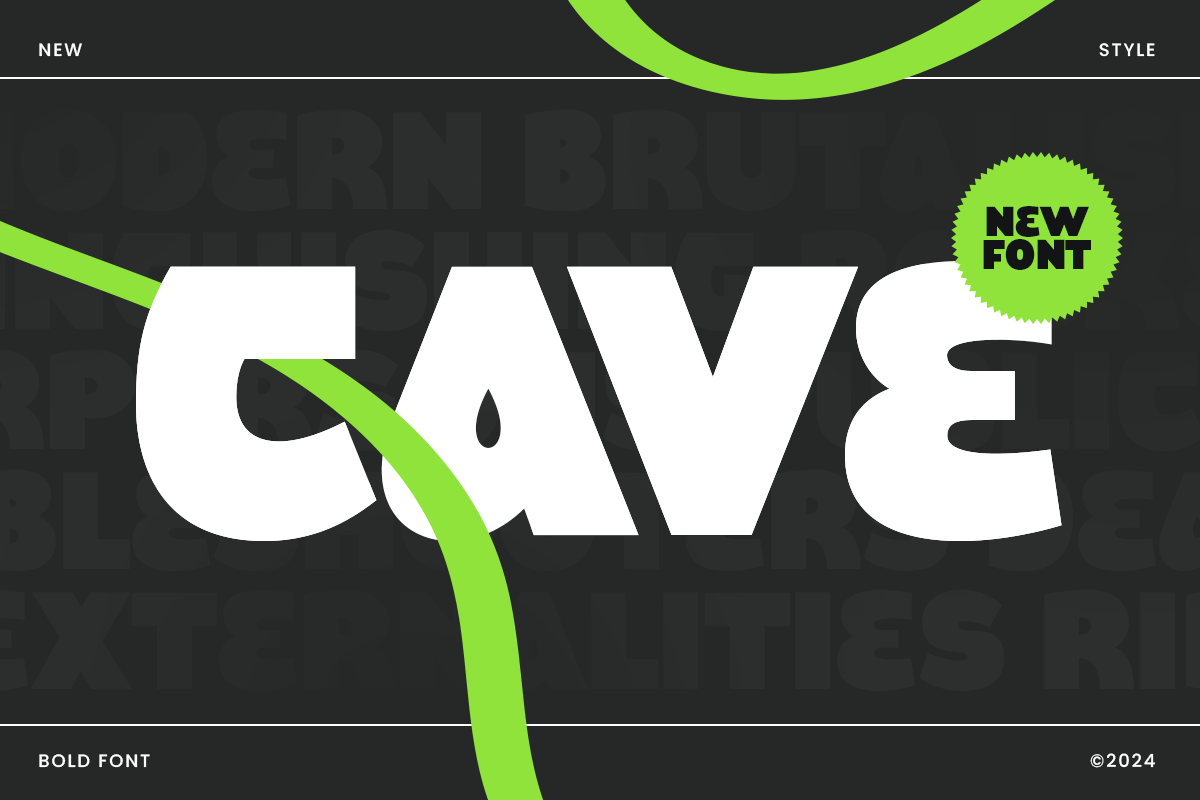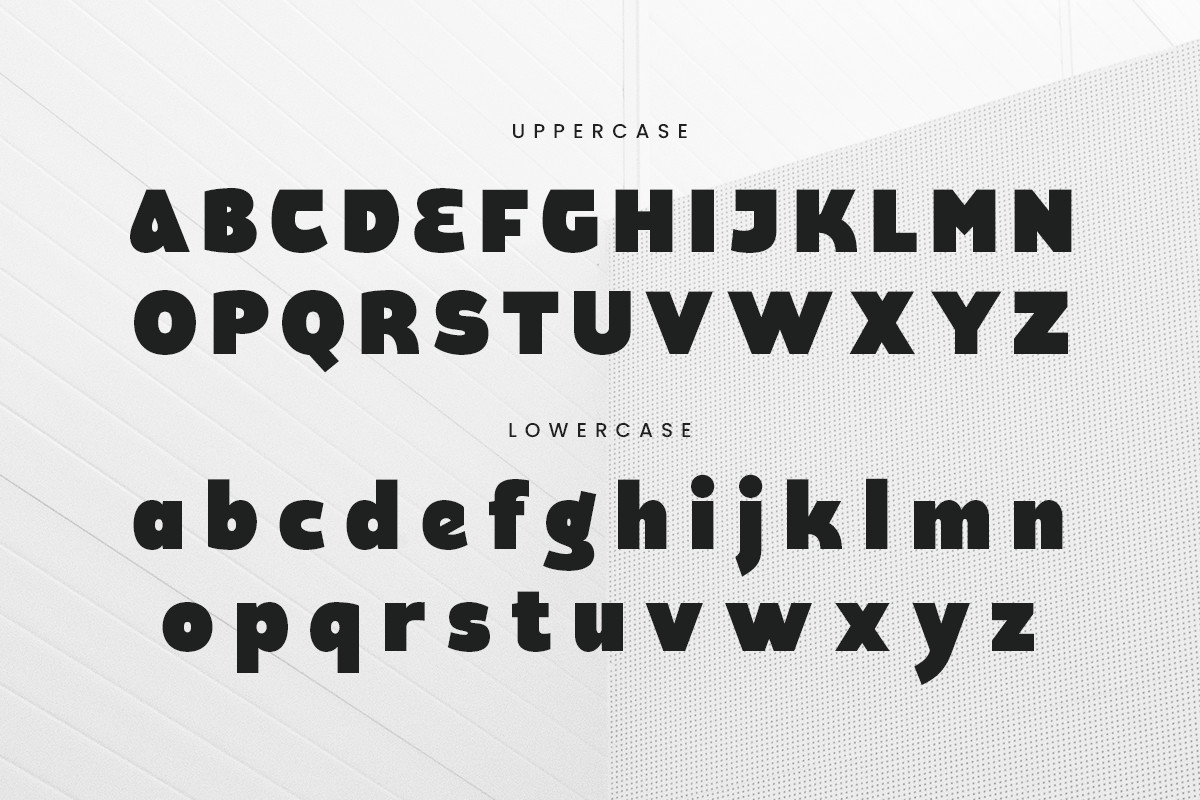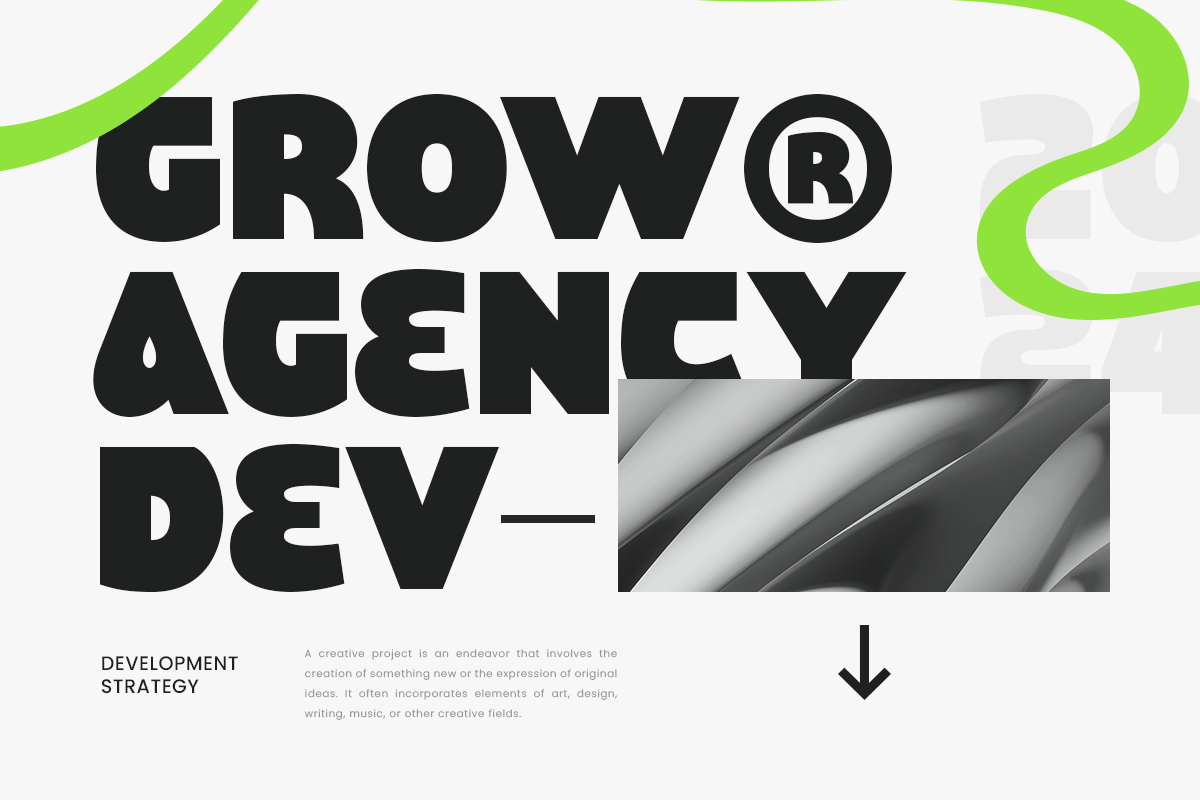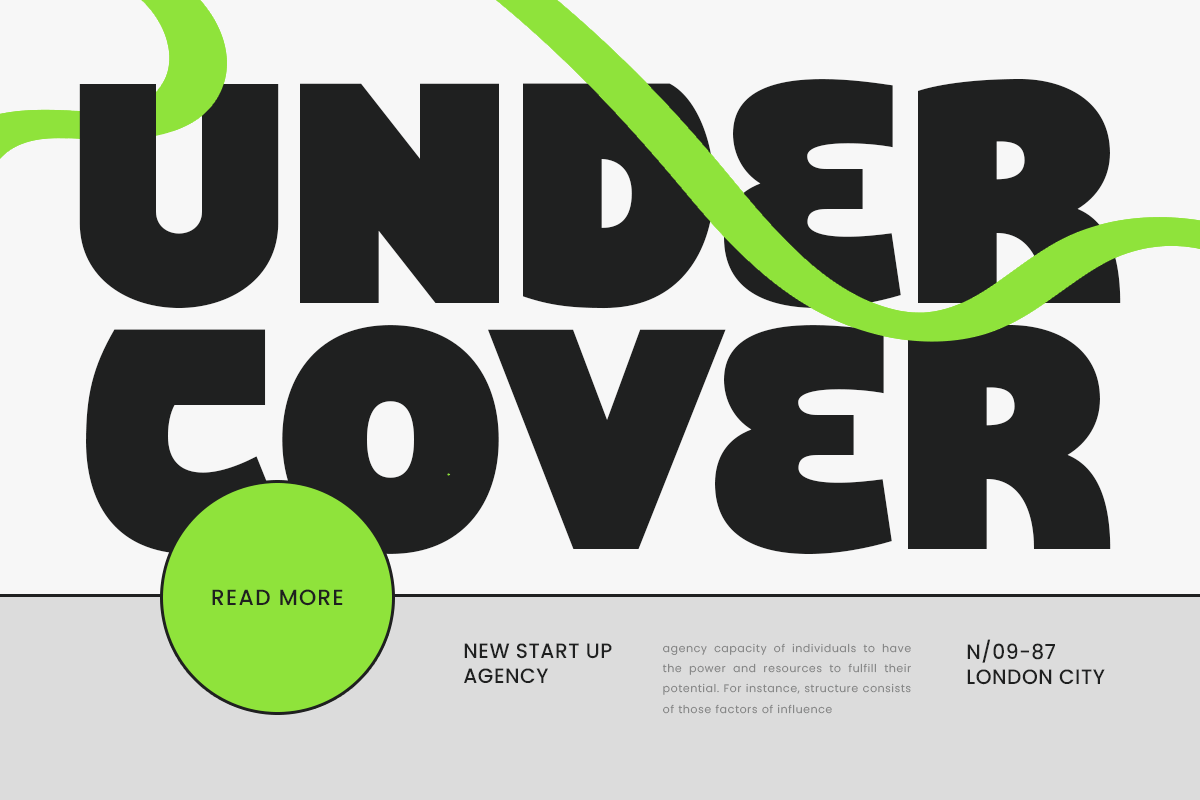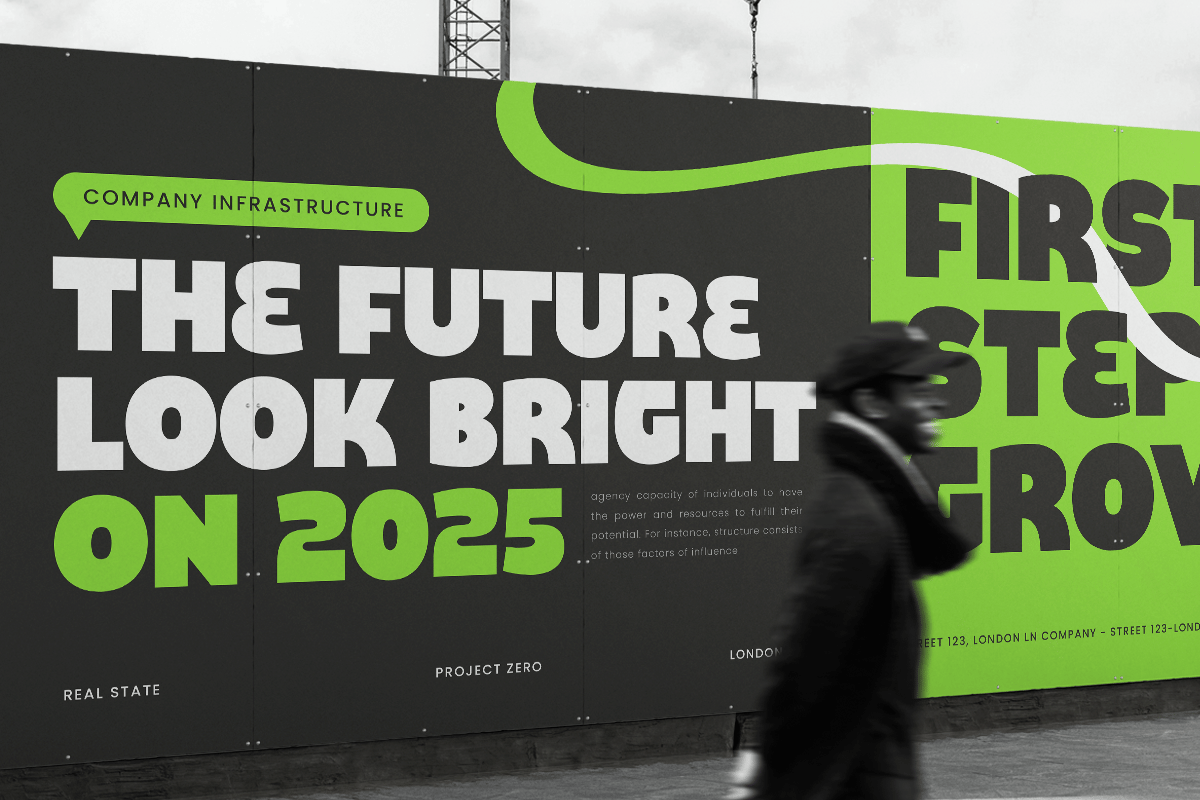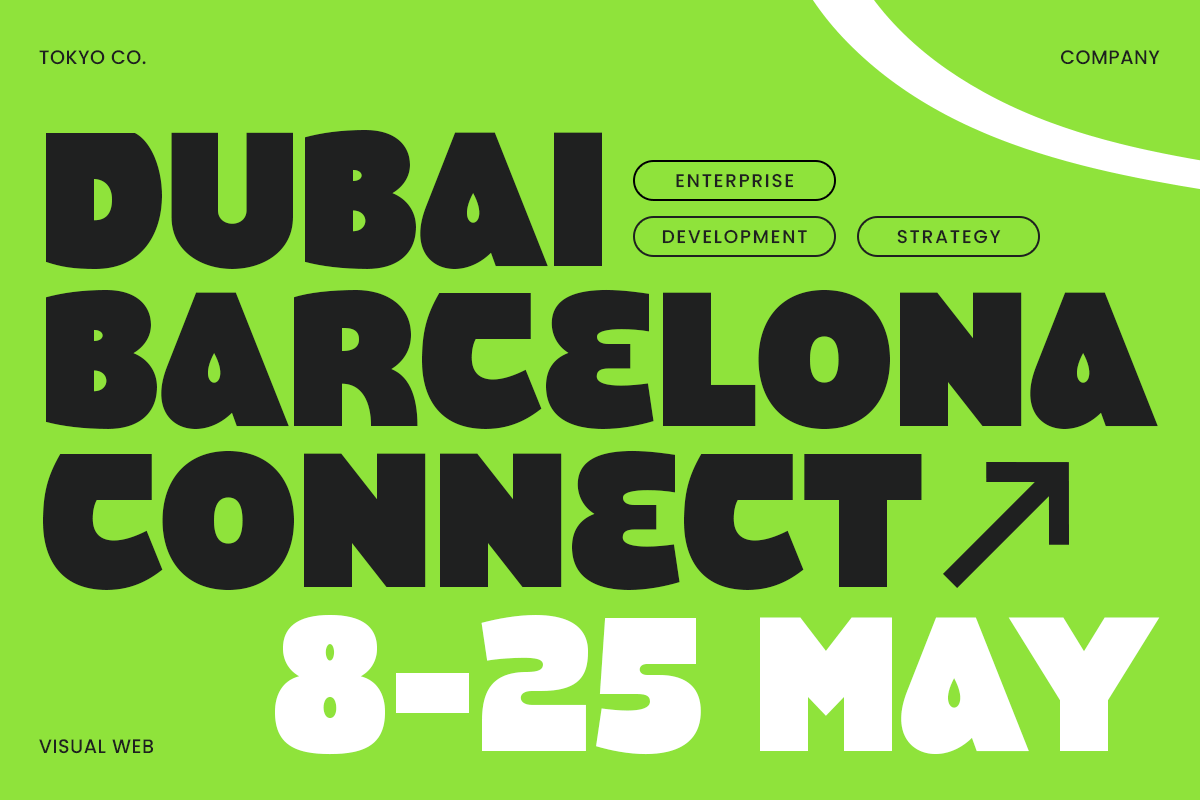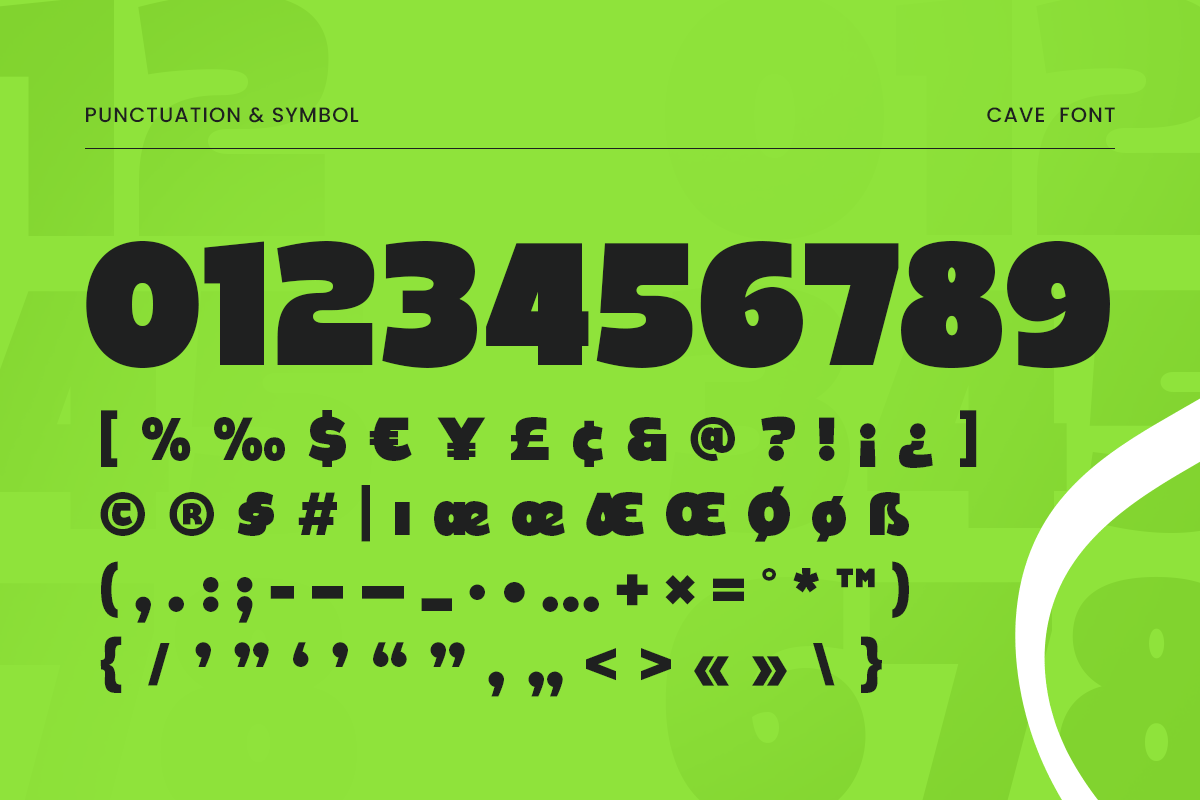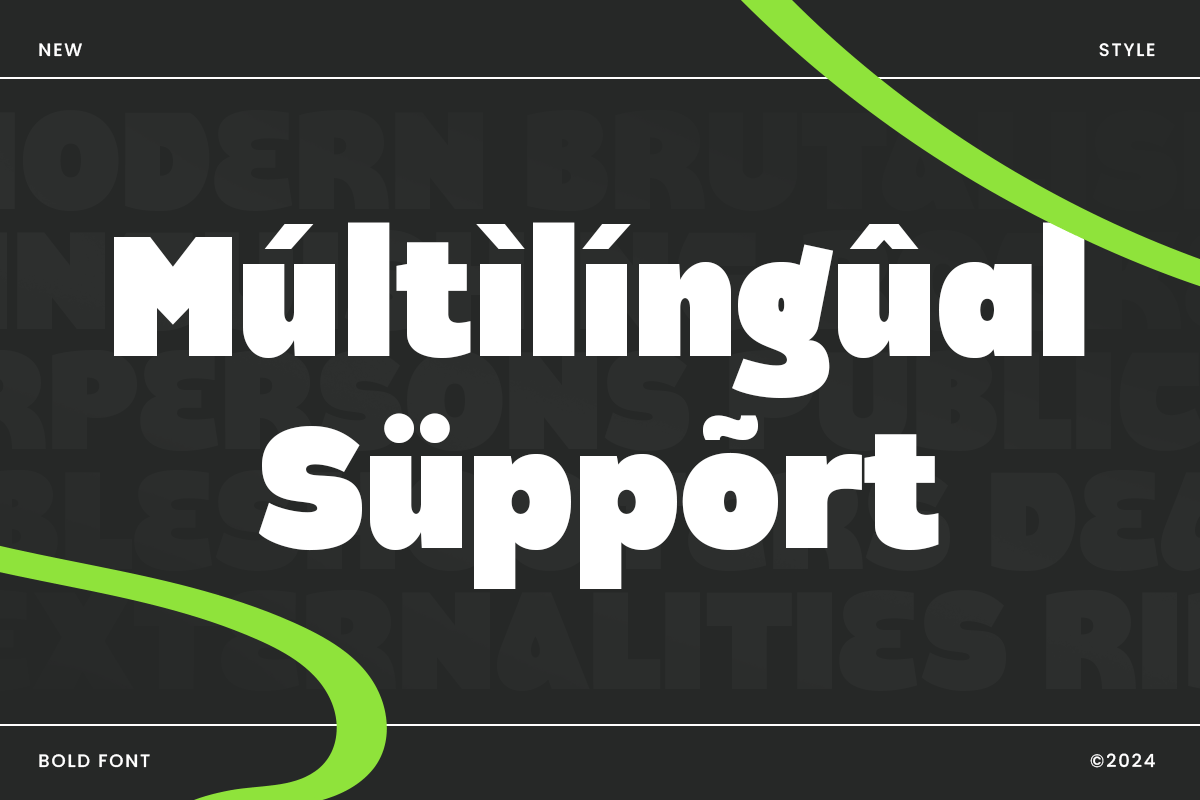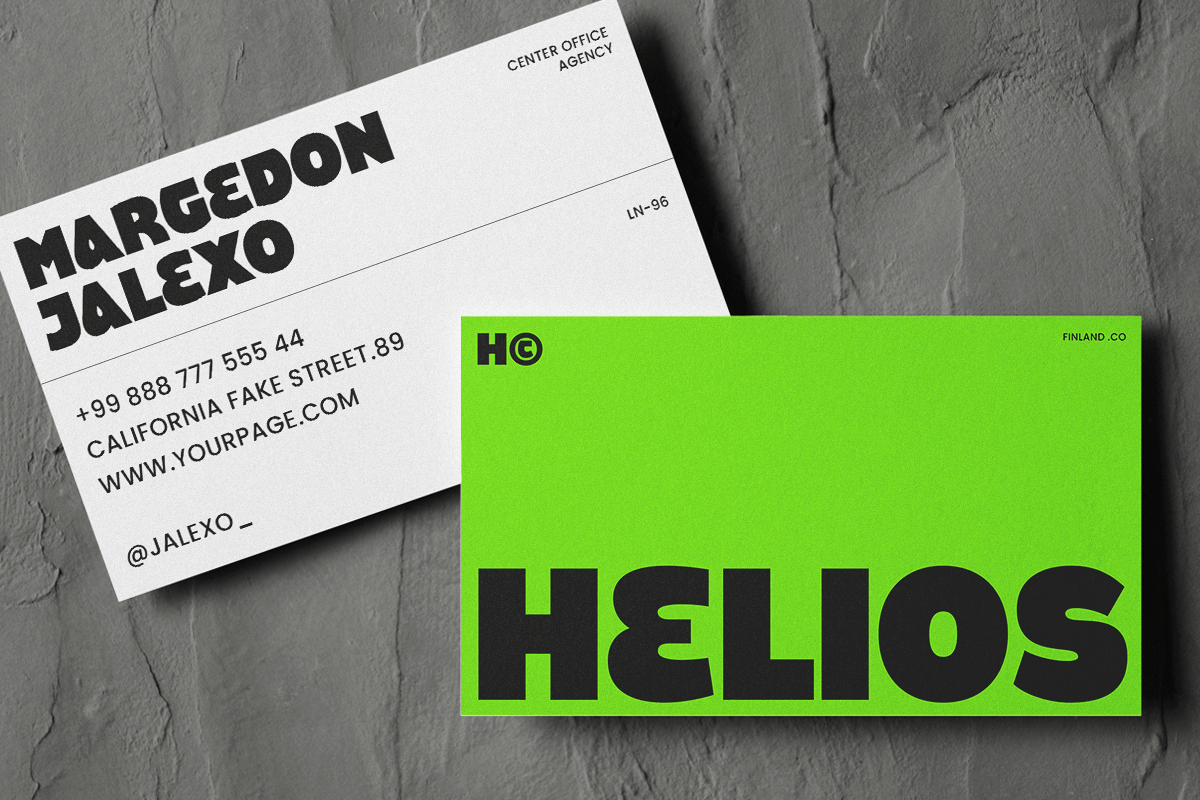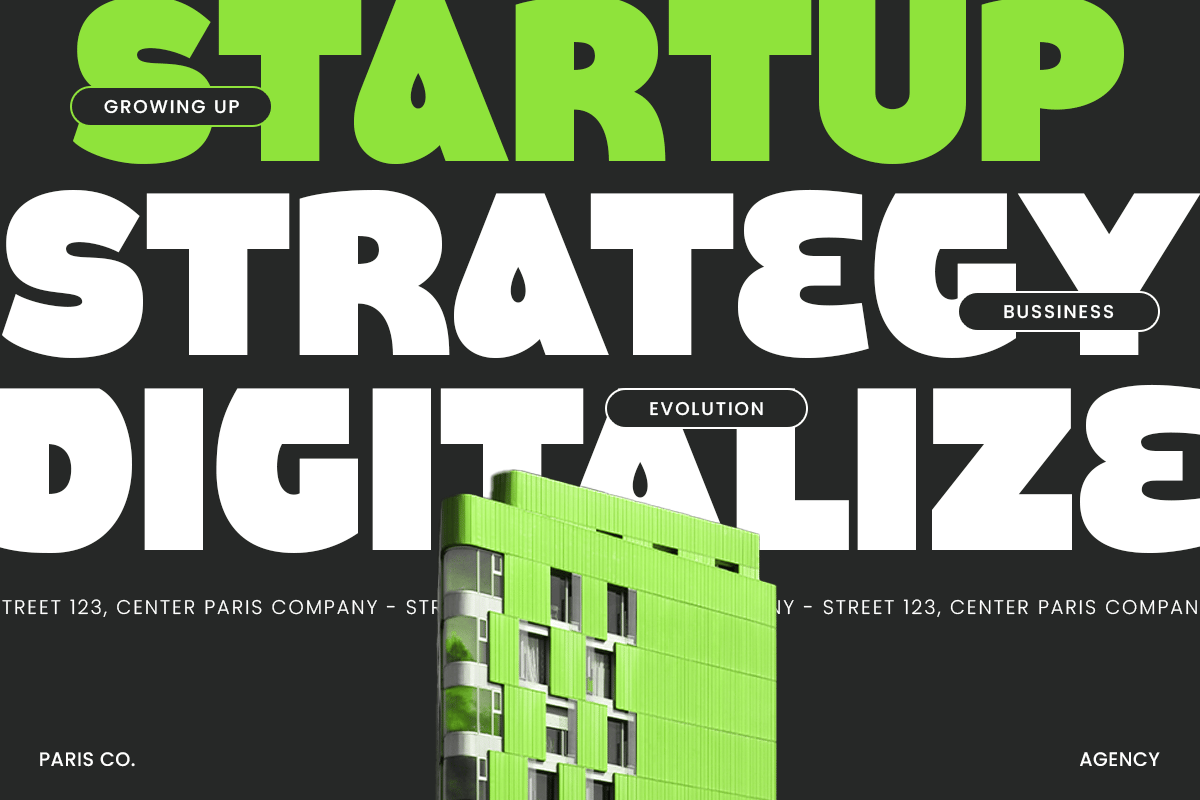
Cave – Bold Font
CAVE is a modern bold logo font designed to make a powerful statement. With its strong and dynamic lines, CAVE captures the essence of modern design while ensuring your logos and branding materials stand out. This versatile font is perfect for creating impactful and memorable designs that leave a lasting impression.
The Story Behind CAVE
CAVE was inspired by the desire to create a font that combines modern aesthetics with bold, impactful design. Drawing from contemporary trends and the need for strong visual communication, CAVE was crafted to meet the demands of designers looking for a unique and dynamic font. Its boldness and clarity make it ideal for projects that require a standout look.
Font Features:
- Strong and dynamic lines
- Versatile for various design projects
- Perfect for bold and modern branding
- Ensures logos and materials are eye-catching
- Suitable for creative and professional design aesthetics
Best For:
- Logo design
- Branding materials
- Advertising campaigns
- Product packaging
- Stylish website headers
Elevate your design projects with CAVE, the modern bold logo font that brings strength and impact to your brand.